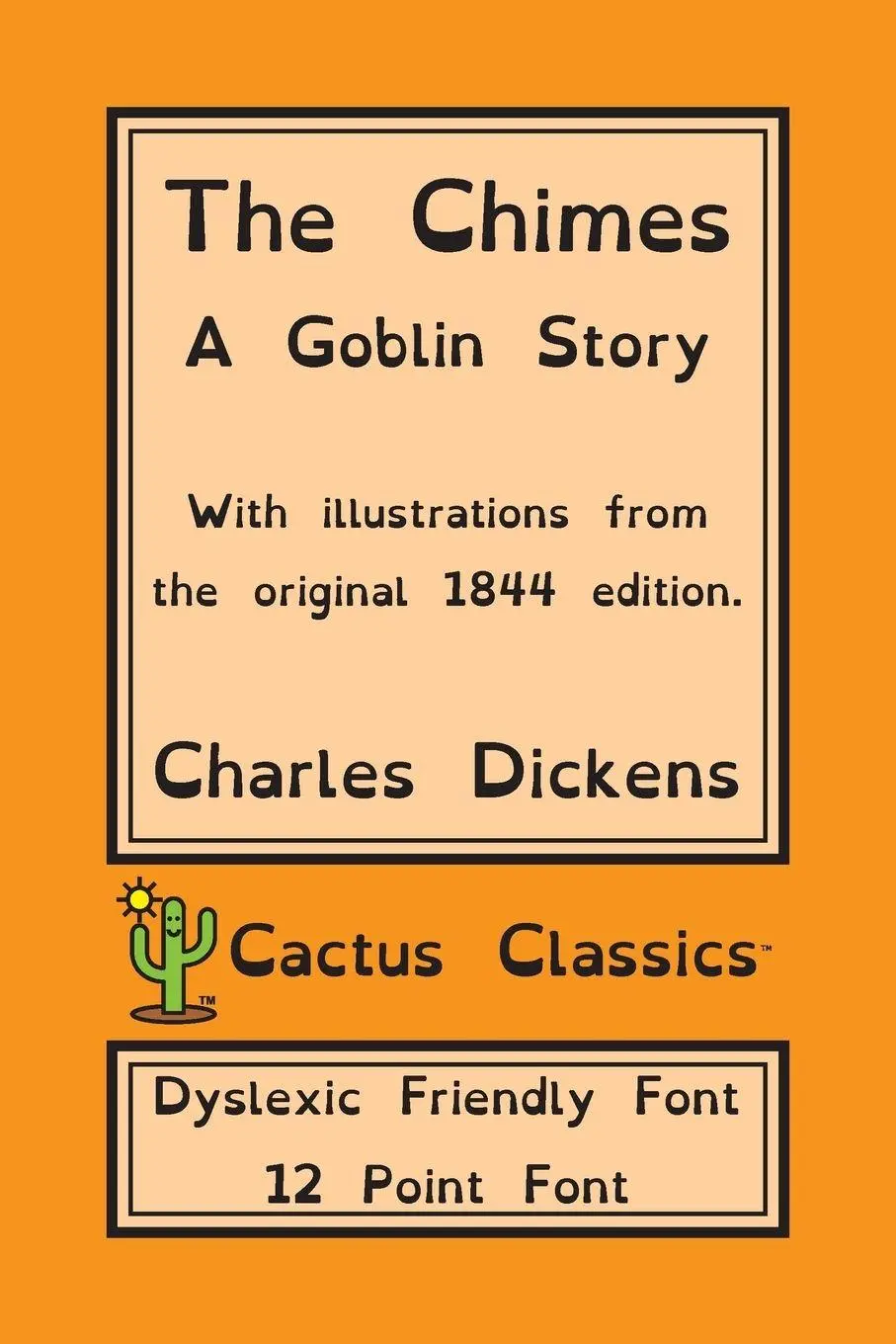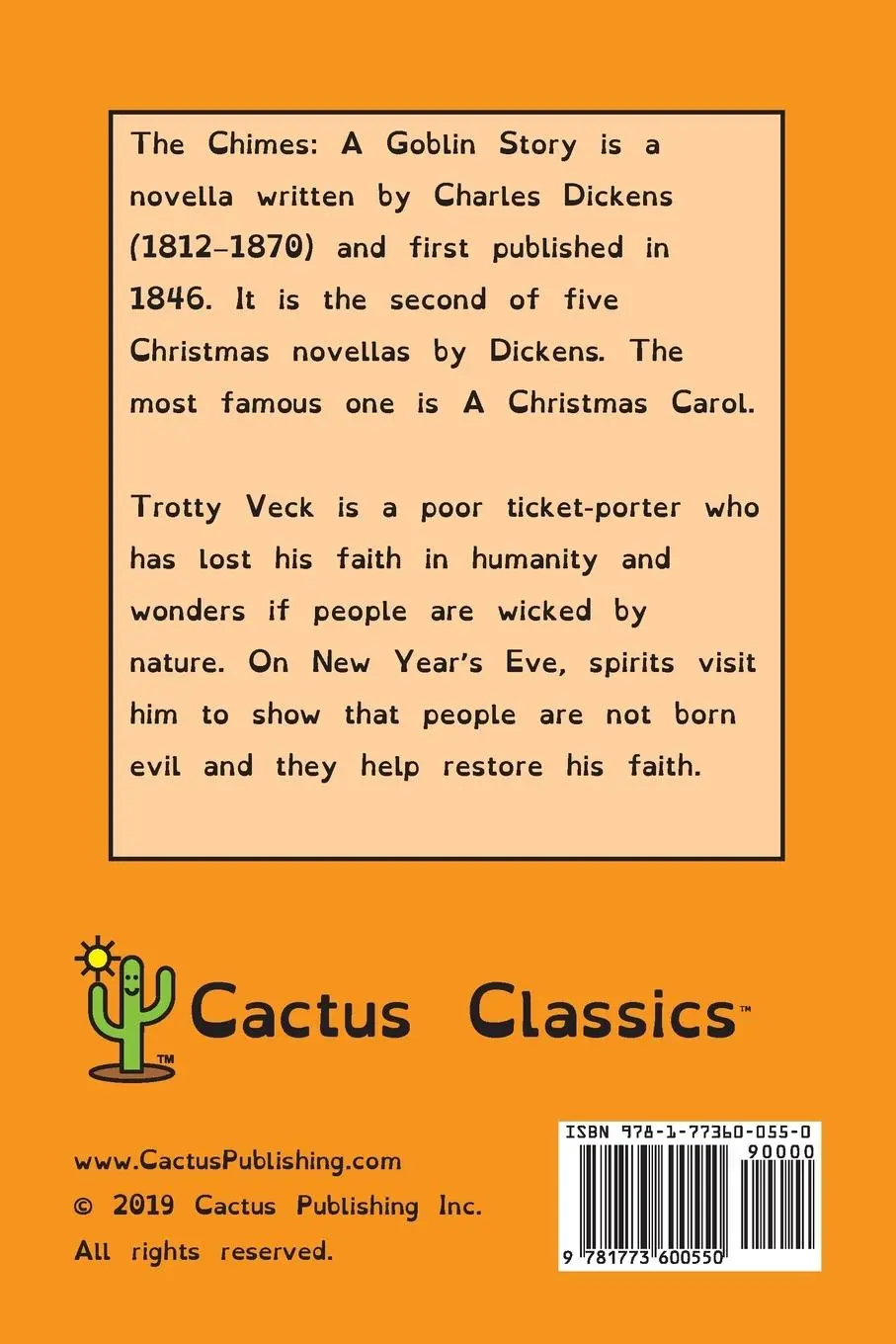
EDITION: Cactus Classics Dyslexic Friendly Font - 12 Point Font
FONT: 12 point OpenDyslexic 3
Cactus Classics Dyslexic Friendly Font editions are typeset in the open source OpenDyslexic 3 font. This font was designed to increase readability for readers with dyslexia. Many people with dyslexia find that this font helps with reading but it does not help everyone.
Cactus Classics Dyslexic Friendly Font editions have a glossy cover, cream paper interior, wide margins, generous white space, extra space between lines of text, left justified text with jagged right side, indented paragraphs and minimal use of all capital letters. Bold text is used instead of italics.